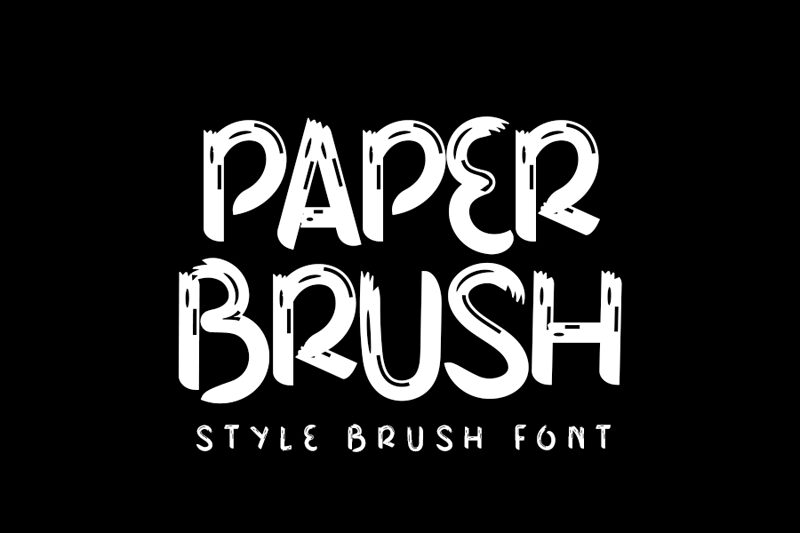
Paper Brush
Paper Brush, designed by Inermedia Studio, is a font that exudes a raw and energetic charm ideal for injecting personality into any project. With its brush style strokes, this font captures the essence of hand-painted lettering, offering a perfect blend of artistic flair and legibility. The textured edges and variable line weights are reminiscent of ink or paint applied with an actual brush, giving designs an authentic and spontaneous feel.
This typeface's aesthetic appeal lies in its ability to convey motion and emotion, making it particularly suitable for projects that require a touch of human touch—be it in branding, advertising campaigns, product packaging or expressive titles. Each character in Paper Brush has been thoughtfully crafted to ensure that it stands out with an individual character while still maintaining harmony when strung together in words or sentences.
Whether you're looking to create eye-catching social media graphics, compelling event posters or need a distinctive title font for editorial use, Paper Brush offers versatility without compromising on style. Its bold presence commands attention yet retains an approachable warmth that resonates with viewers. Unleash your creative potential with Paper Brush—a typeface that's as dynamic and spirited as your ideas.